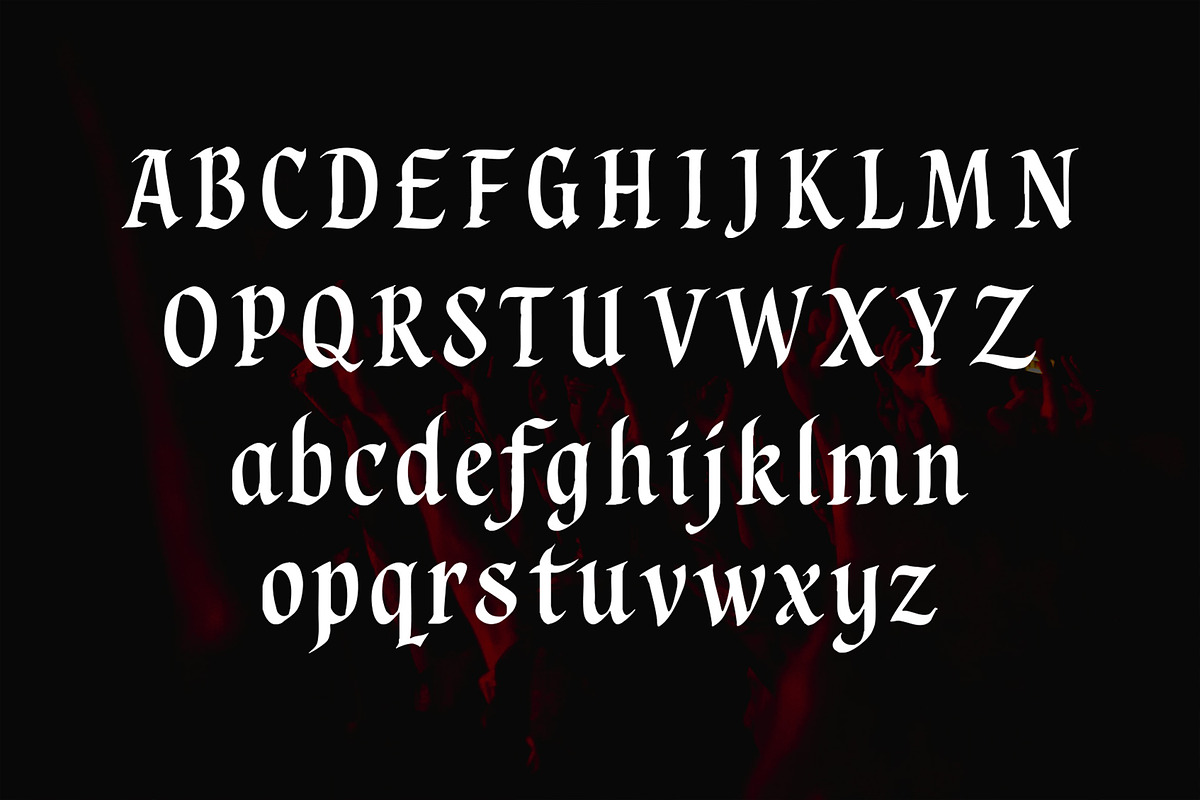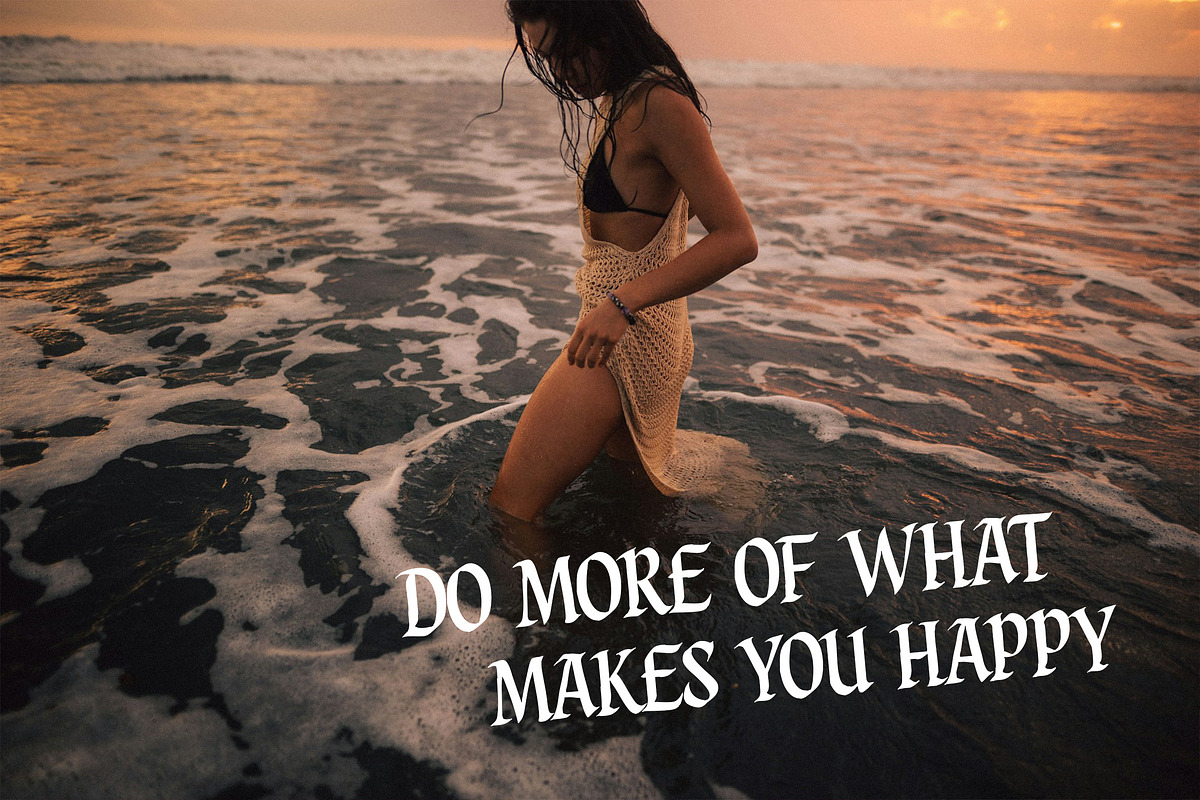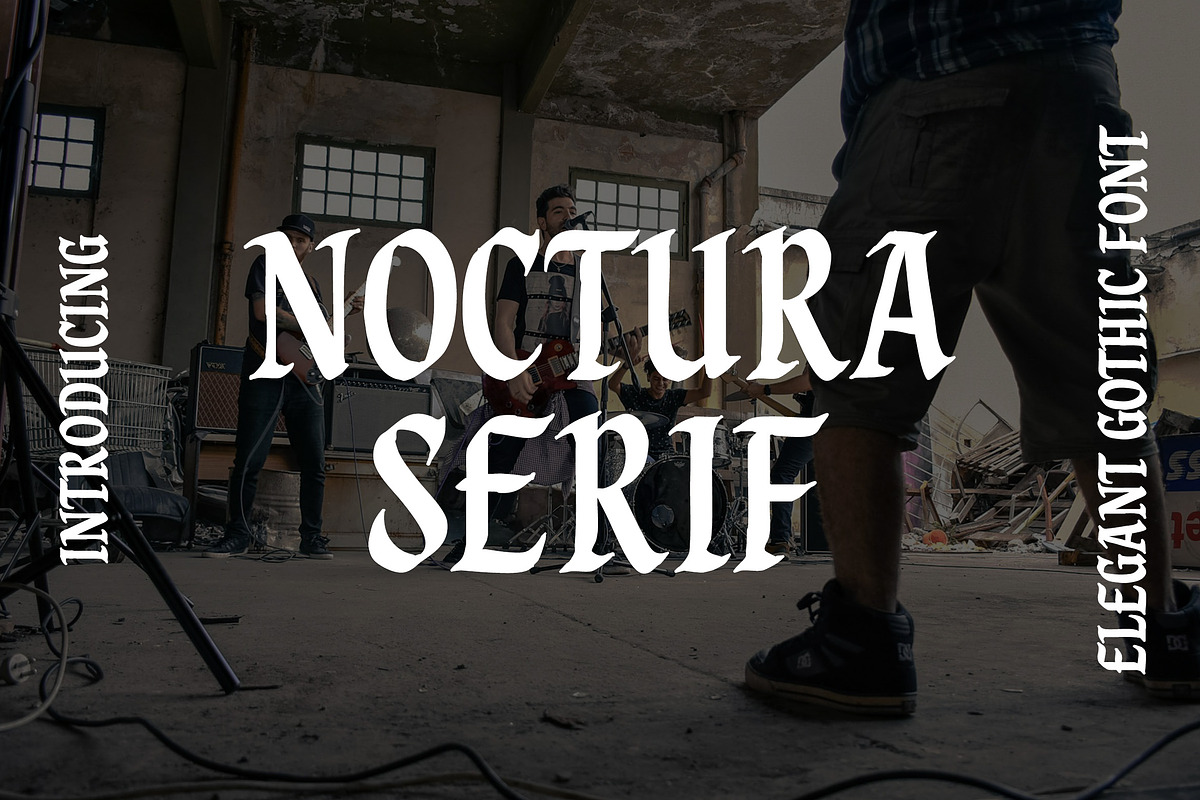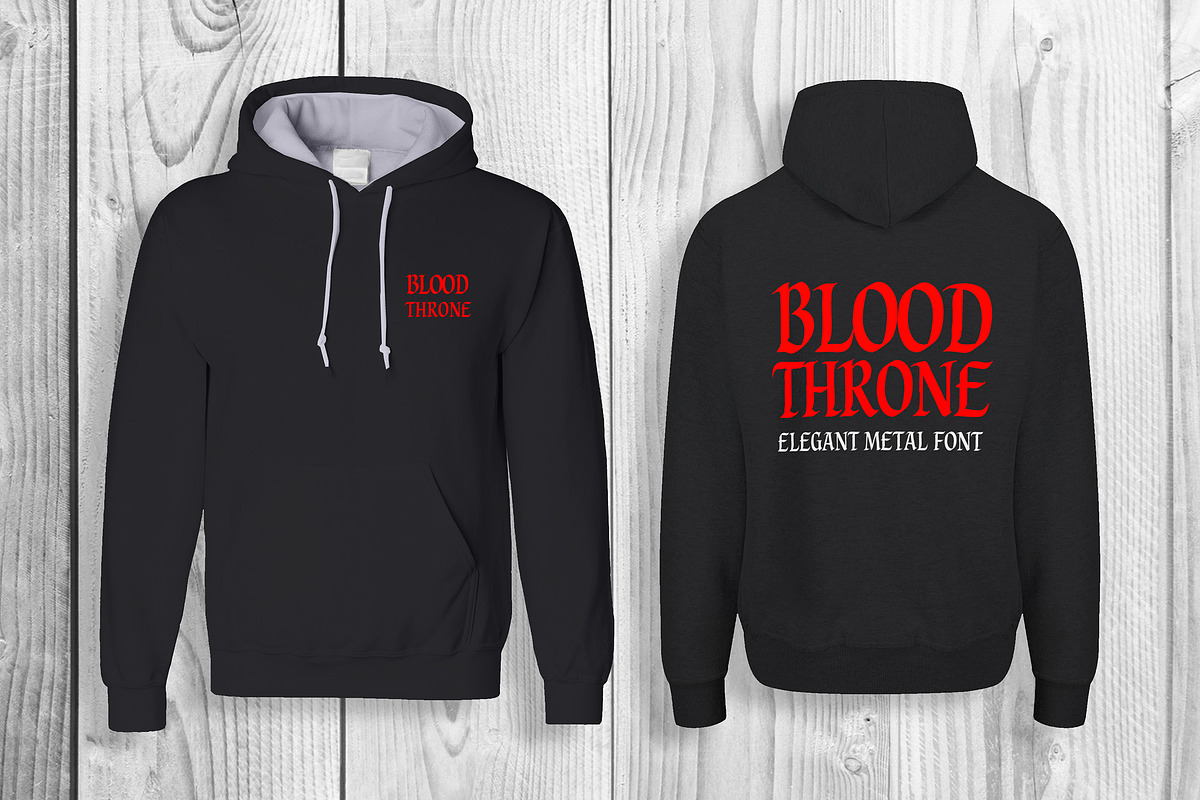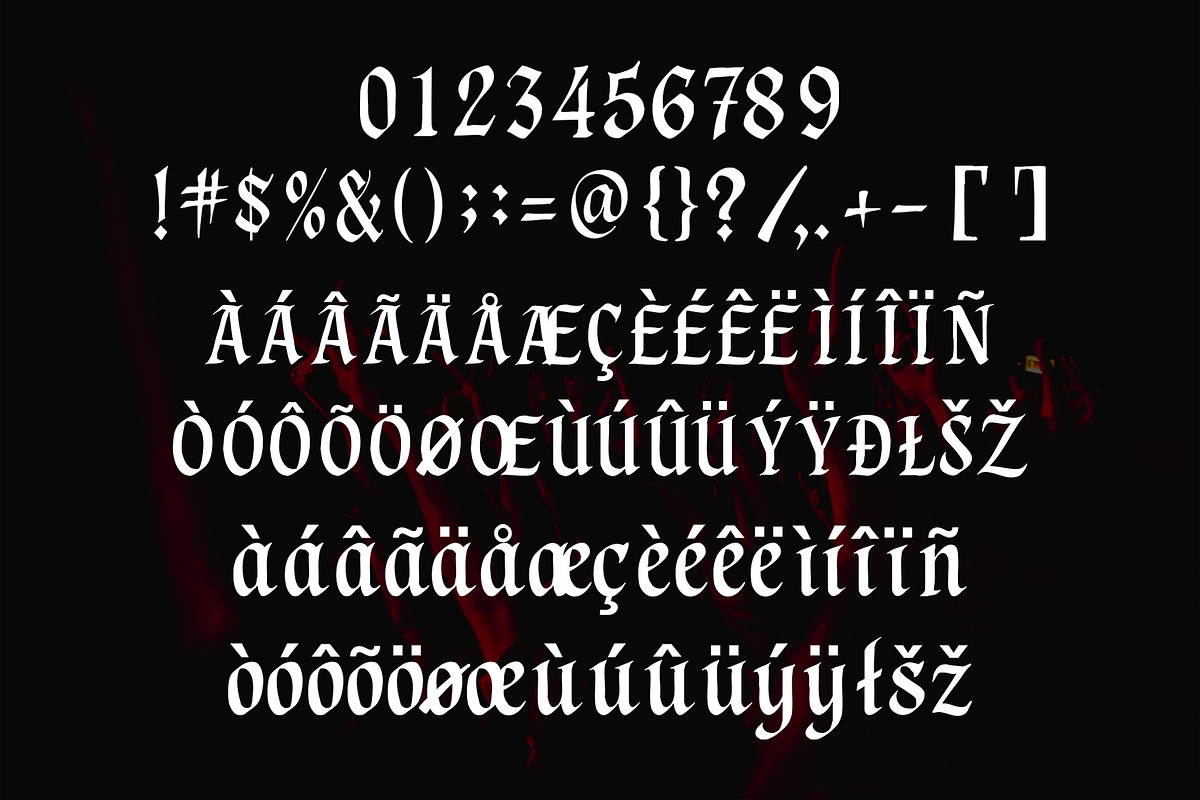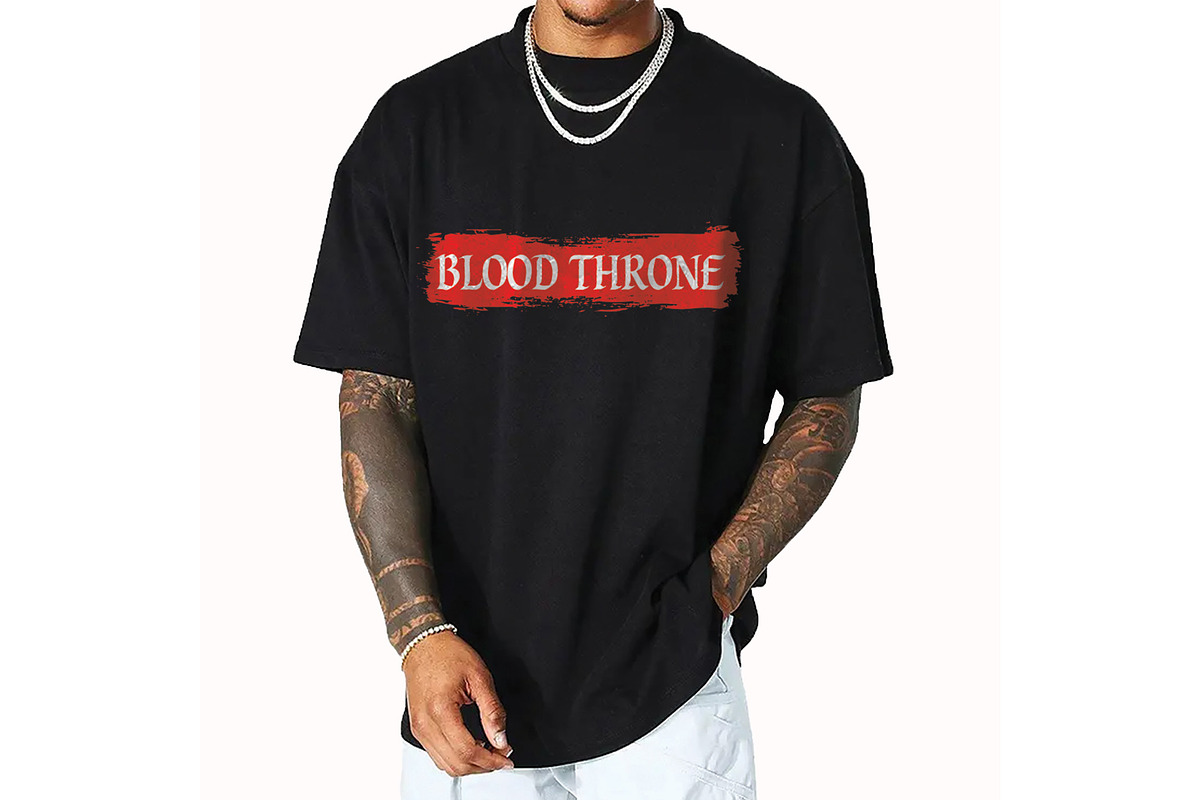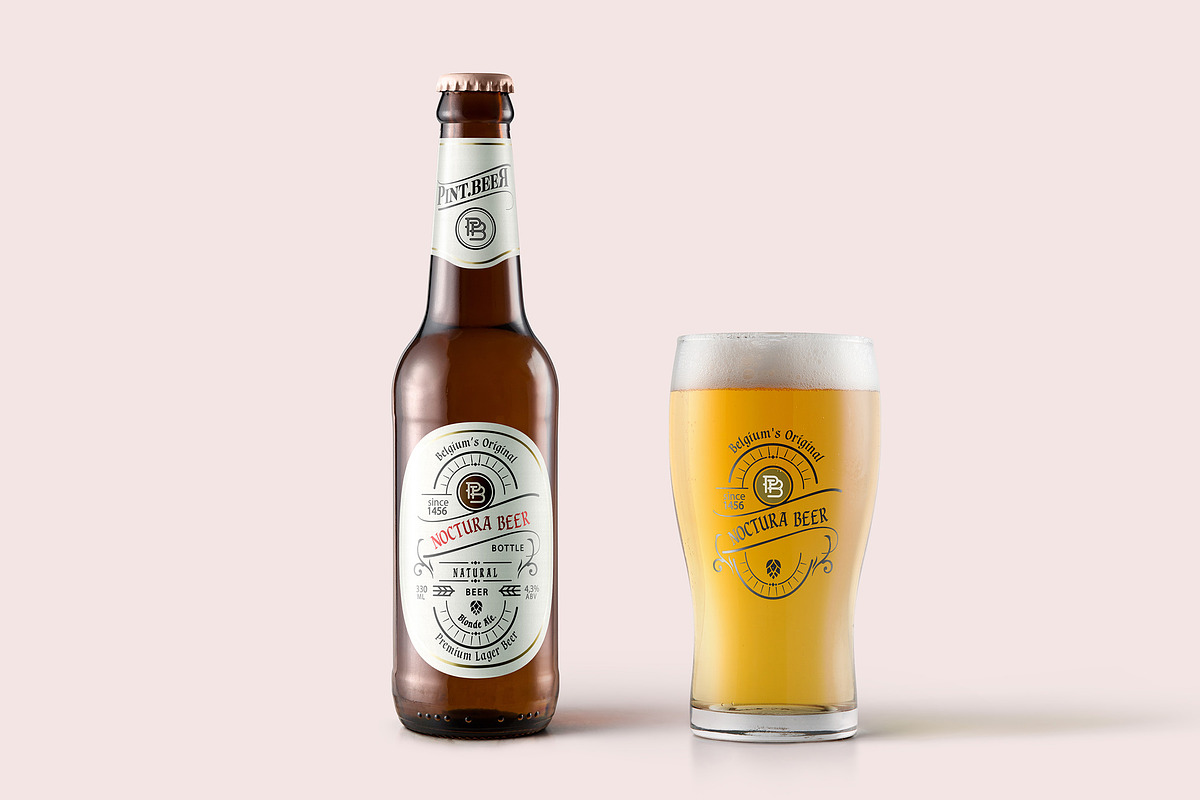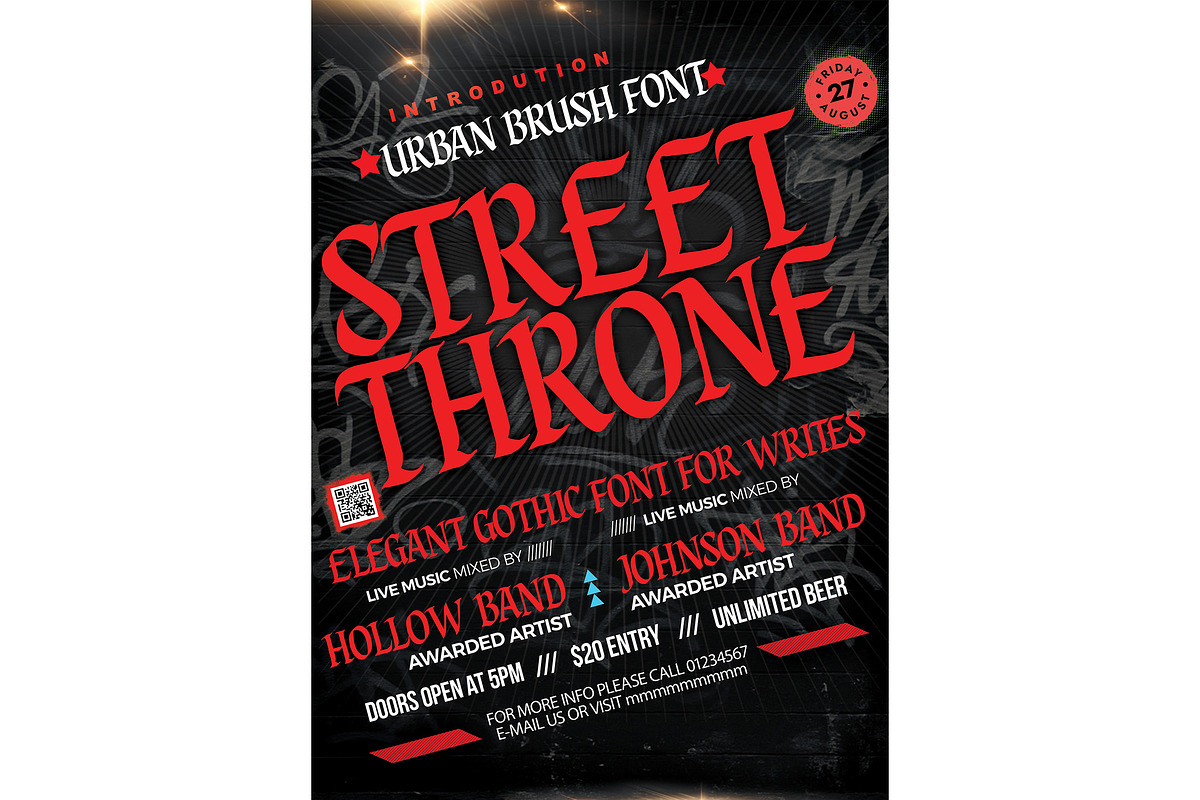
Noctura Gothic
Noctura Elegant Gothic Display Font Serif blends modern gothic style with elegant, sharp details. Perfect for luxury branding, logos, posters, and packaging, it delivers a bold yet refined look inspired by classic Blackletter.
- 223 Glyps included Uppercase, Lowercase, Numeral, Punctuation, Multilingual international Language.